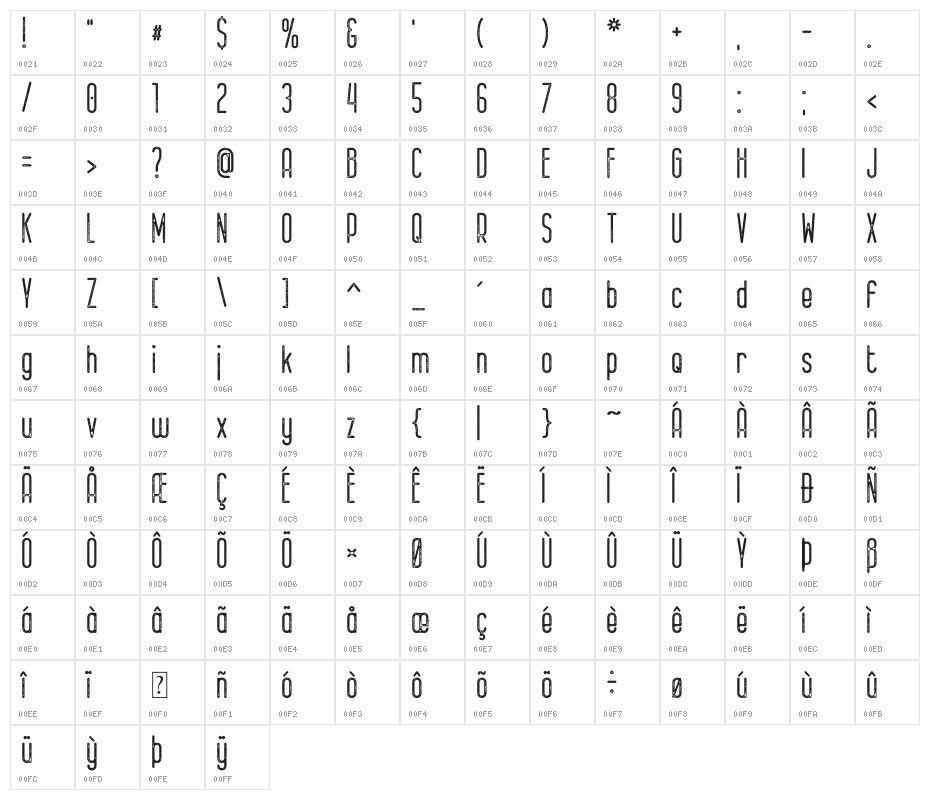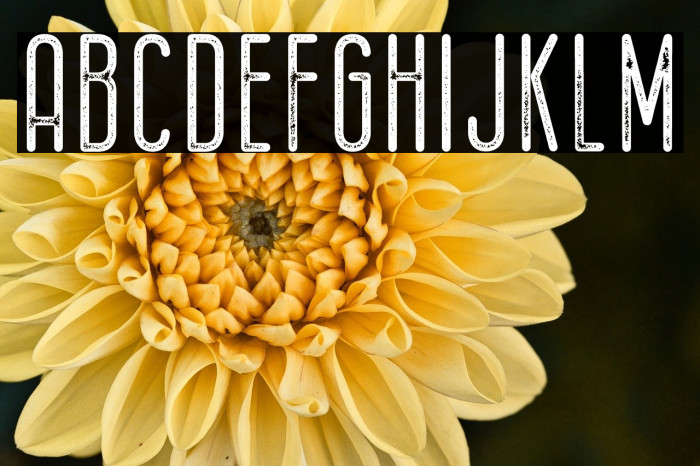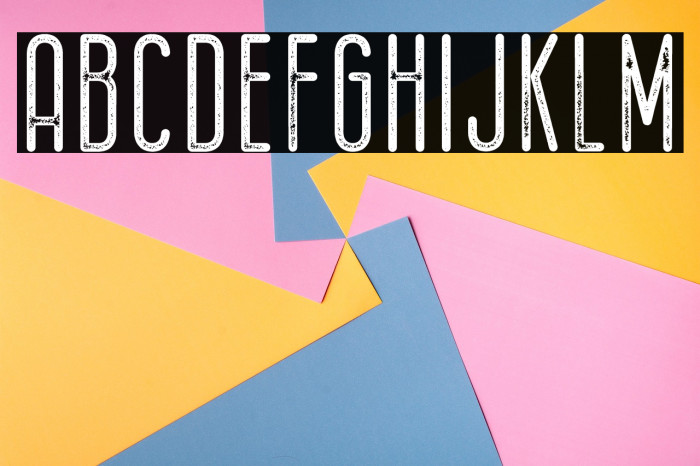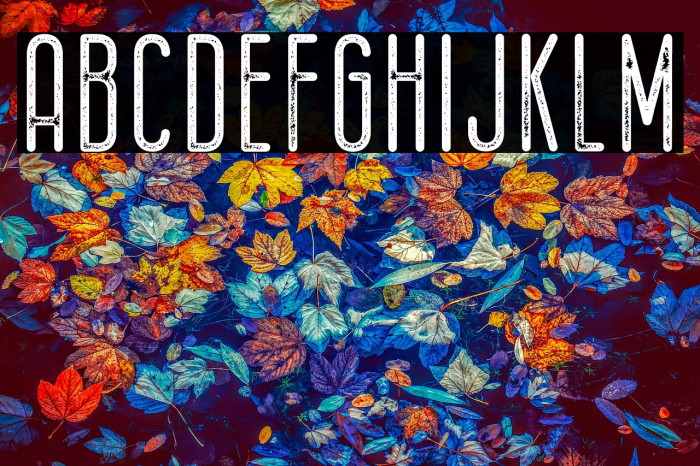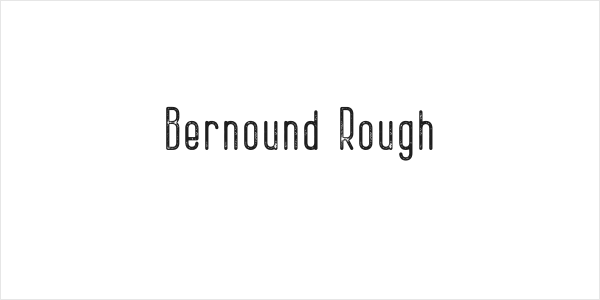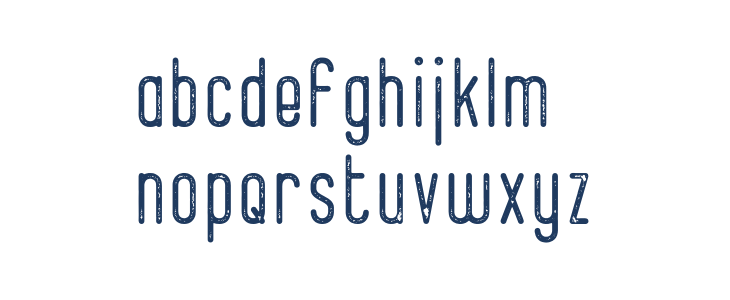
Bernound Rough Font
Bernound Rough Description
This font features a distinctive rough texture, giving it a worn and vintage appearance. The characters are tall and narrow, with a consistent stroke width that maintains a clean and legible look despite the distressed effect. The uppercase and lowercase letters are well-proportioned, and the numbers follow the same stylistic approach, ensuring uniformity across all characters. The special characters retain the same rough texture, adding to the cohesive design. This font is ideal for projects that require a rustic or industrial feel, such as posters, branding, or packaging.
| Width | Condensed |
| Overall Style | Vintage |
| Proposed Projects | Ideal for vintage-themed posters, branding, packaging, and industrial design projects. |